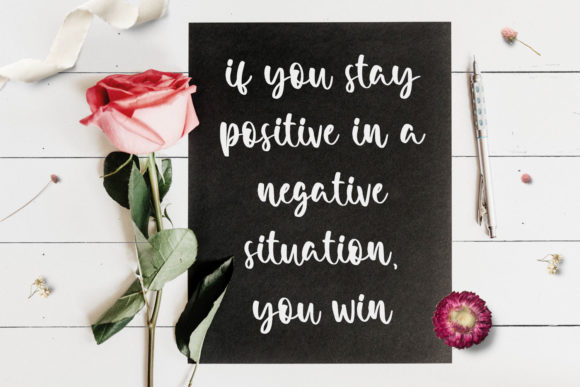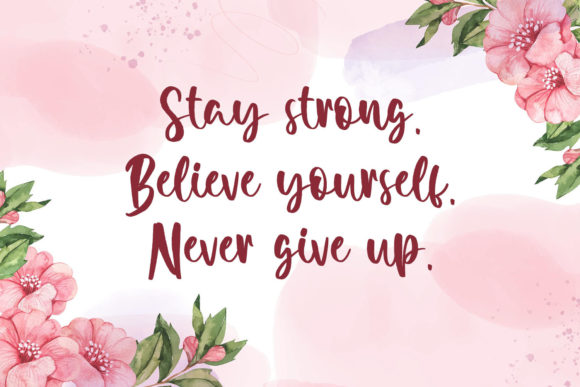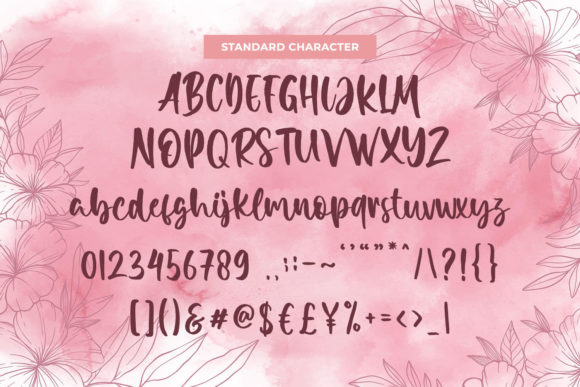
Introduction to Mikasa Signature Font
Have you ever stumbled upon the perfect design element that takes your creative project to the next level? For many designers, that moment comes when they find the right font to bring their ideas to life. I still remember the thrill of discovering the Mikasa Signature Font – a lovely script font that features charming, playful characters that seem to dance along the baseline.
As a design resource, the Mikasa Signature Font is a valuable addition to any designer’s toolkit. Its high quality and unique style make it an excellent choice for a wide range of creative projects, from invitations and greeting cards to branding and packaging design. And the best part? It’s available for free download, complete with a transparent background, making it easy to integrate into your designs.
- High-quality font design suitable for creative projects, offering a unique and stylish aesthetic.
- Features a sleek and modern design, perfect for use in logos, branding materials, and other creative projects.
Honest Review: Mikasa Signature Font
As a designer, I’m always on the lookout for high-quality design resources to elevate my creative projects. Recently, I came across the Mikasa Signature Font, which caught my attention with its elegant and modern design.
- ✨ Unique and stylish design, perfect for adding a touch of sophistication to any project
However, I do have a few concerns:
- ⚠️ Limited character set, which may not be ideal for longer texts or extensive projects
Overall, I’m impressed with the Mikasa Signature Font’s design and quality. While it may have some limitations, it’s still a valuable resource for designers looking to add a touch of elegance to their creative projects. With a free download available, it’s definitely worth checking out.
Mikasa Signature Font
The Mikasa Signature Font is a high-quality design resource perfect for any creative project. With its sleek and modern aesthetic, it’s sure to elevate your designs to the next level.
To get the most out of the Mikasa Signature Font, try using it with a transparent background to create a clean and modern look.
The Mikasa Signature Font is perfect for:
- Brand logos and identity
- Marketing materials and social media graphics